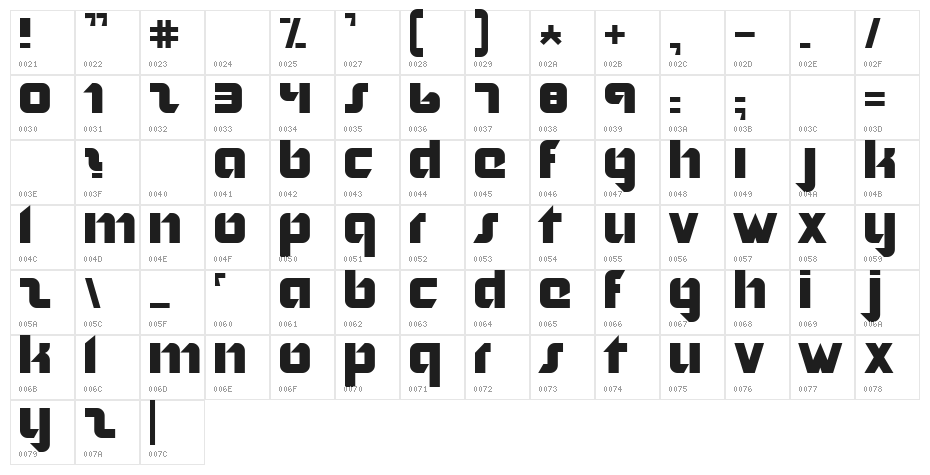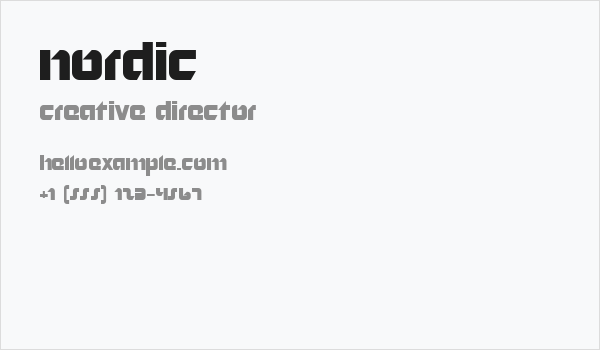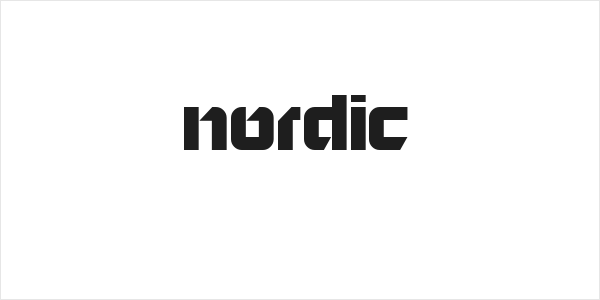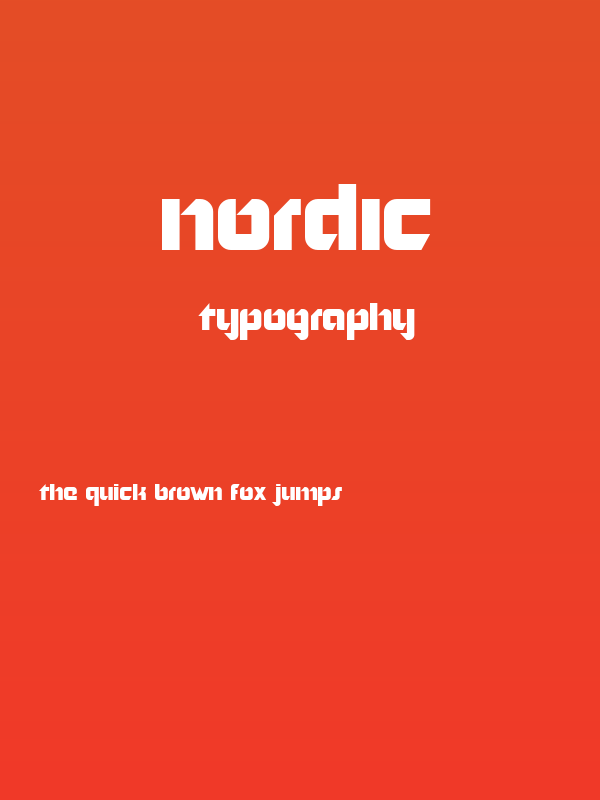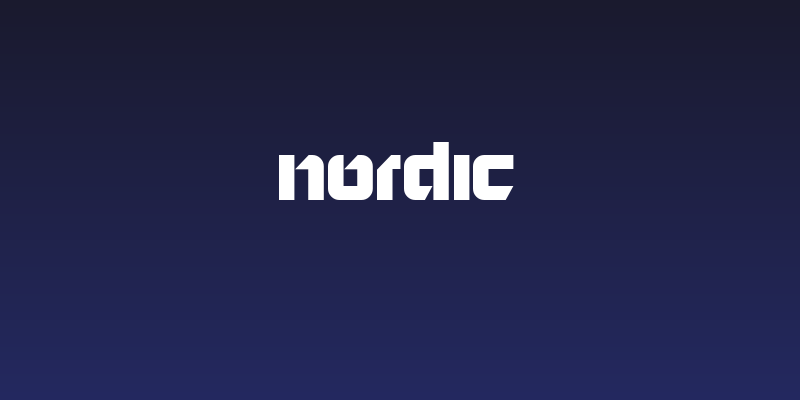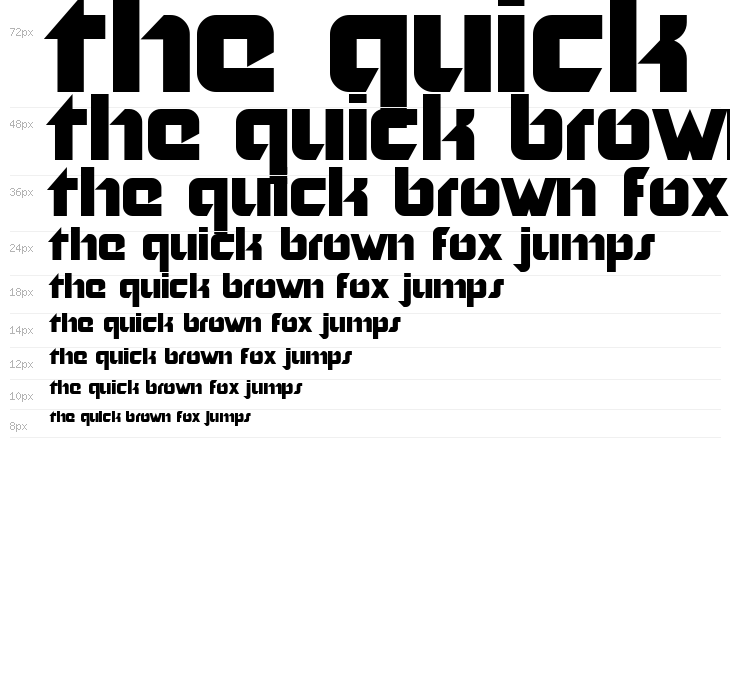
Nordic Font
Nordic Description
This font features a bold, geometric style with a modern and futuristic aesthetic. The uppercase letters are characterized by sharp angles and clean lines, creating a sense of precision and strength. The lowercase letters maintain a similar geometric structure, offering a cohesive look across different text cases. The numerals are distinct and bold, matching the overall style of the alphabet. Special characters are designed with the same attention to detail, ensuring consistency throughout. This font is ideal for projects that require a strong visual impact, such as branding, headlines, and posters.
| Proposed Projects | Ideal for branding, headlines, posters, and any design requiring a strong visual impact. |